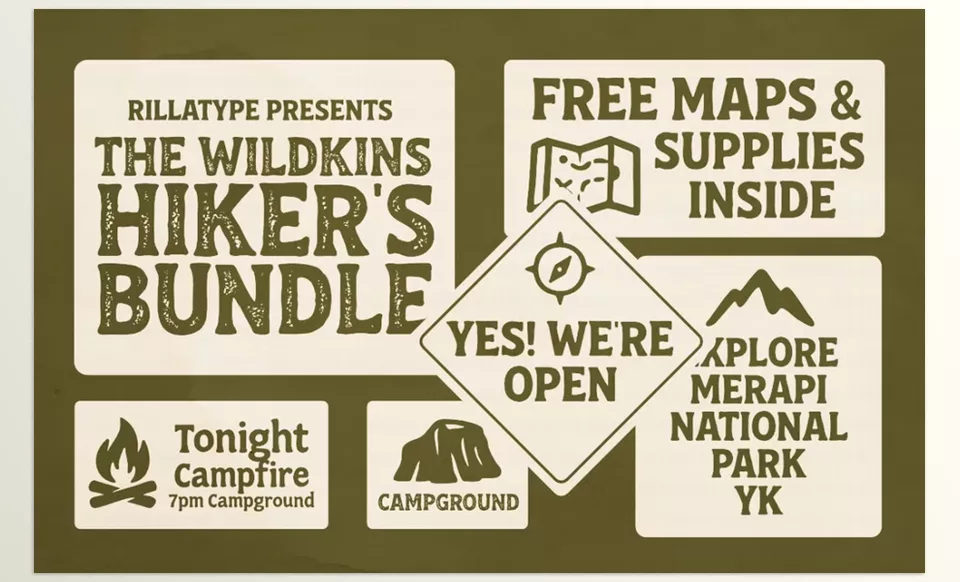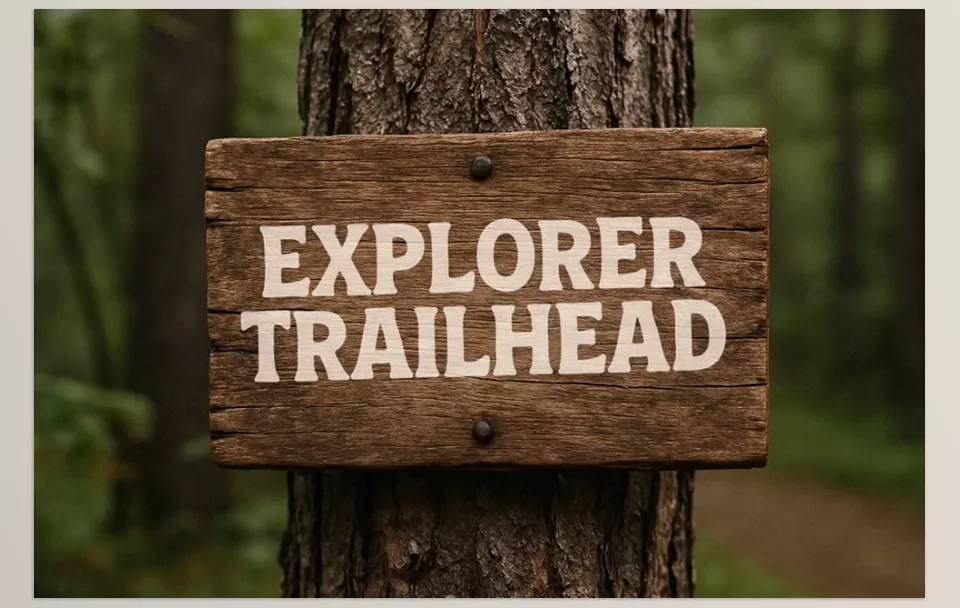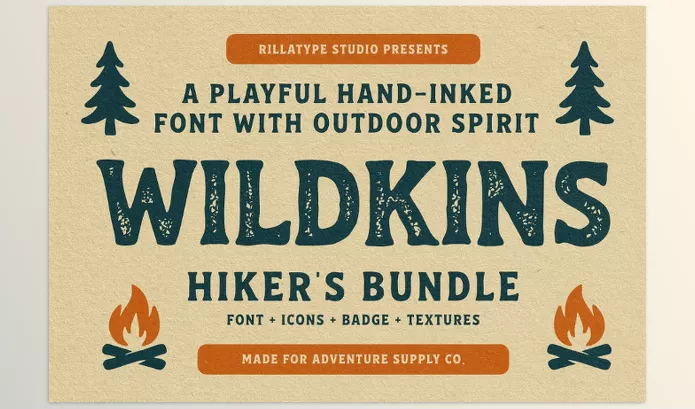
Wildkins Hiker’s Bundle is the perfect font bundle for adventurous projects as it adds a touch of handwriting and the great outdoors. This blend is perfect for branding, packaging, signage, and other business undertakings to add a flair to Nature.
Image 1: Adventure begins with every letter — craft bold, outdoorsy designs with a playful spirit.
Image 2: Bring the wild to your branding with hand-inked fonts, adventure icons, and rugged textures.